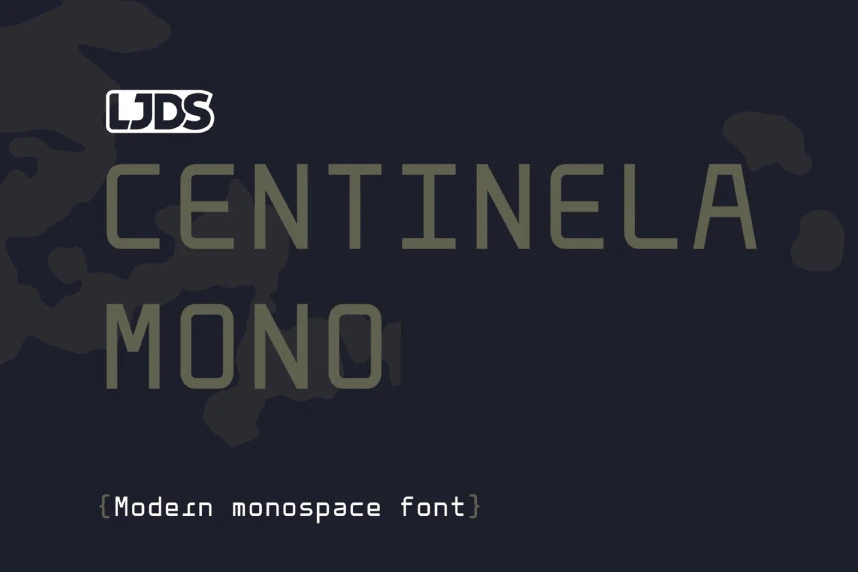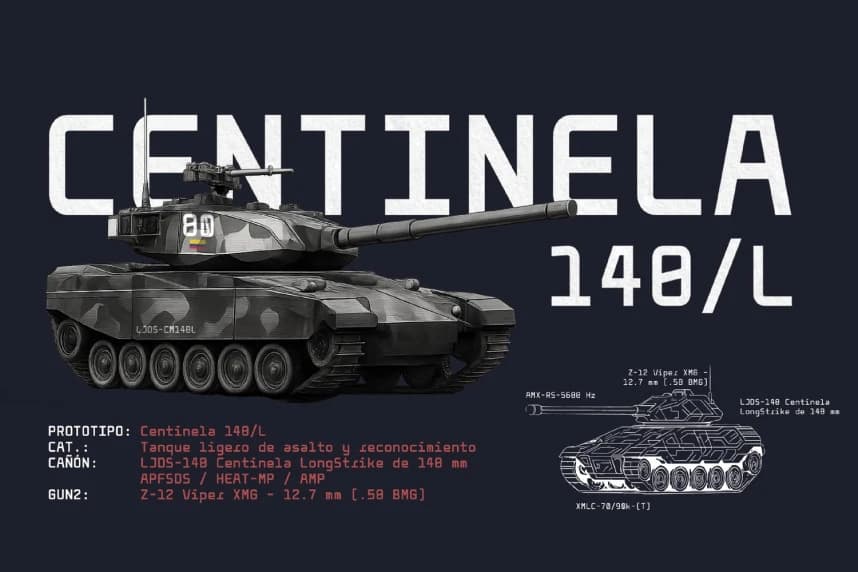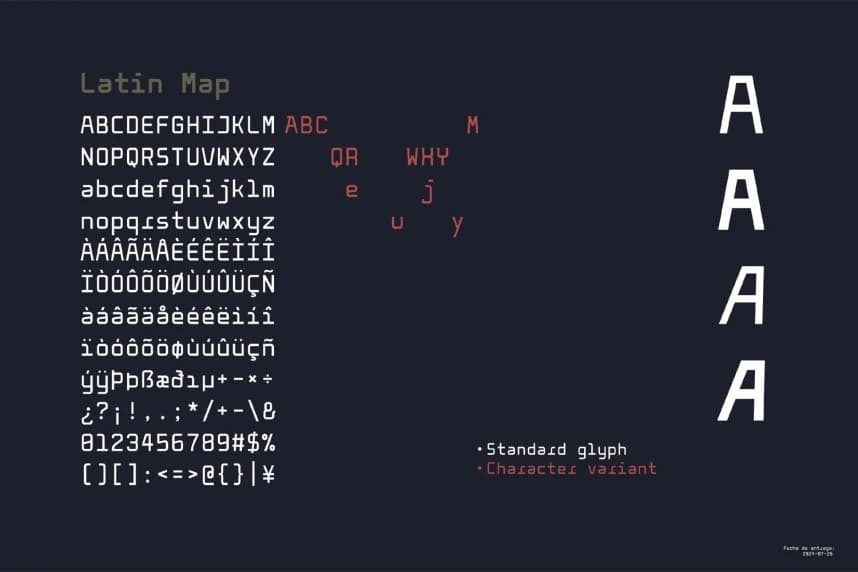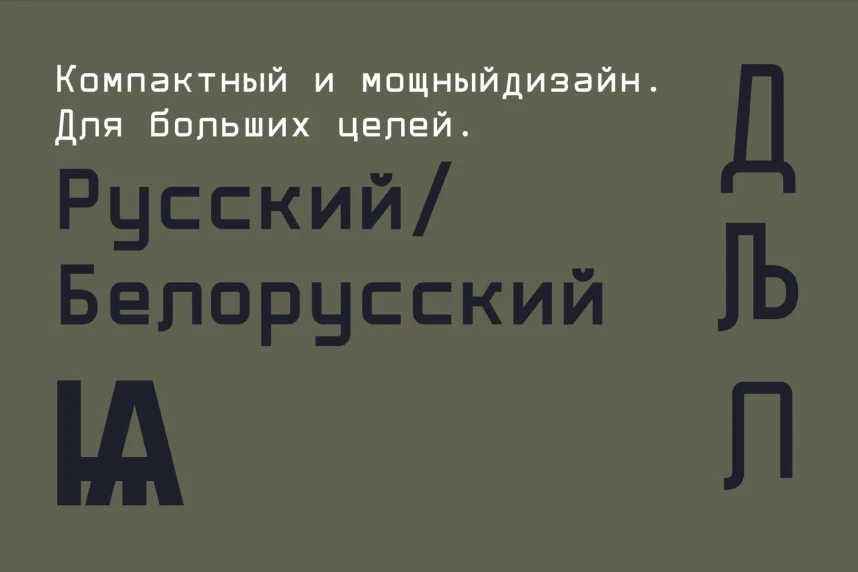
Centinela Mono Font
Centinela Mono Font is a monospace font created for programming consoles. It has a simple, modern style that adapts perfectly to any programming or coding environment. It's perfect for working with platforms like Sublime, Python, or any text engine.